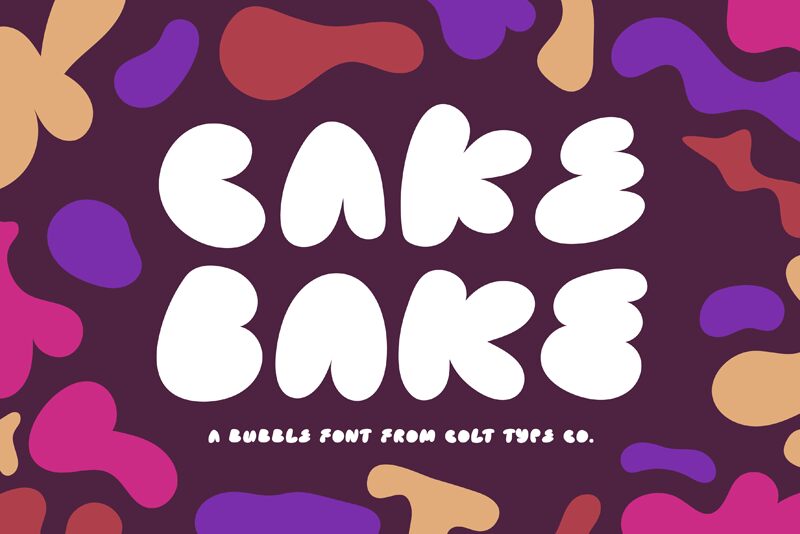
Check out Cake Bake, the latest display font from wearecolt. This ultra-bold, cartoonish and bubbly typeface is bursting with character and 70's retro vibes.
Its all-uppercase design, with alternate uppers on the lowercase keys, gives it a natural flow and feel. Whether you need a playful logo, eye-catching headings, attention-grabbing book titles or witty quotes, Cake Bake is perfect for adding a touch of cheeky fun-ness to any project.
Let your creativity run wild with this vibrant and energetic font!
For good measure, I added an outline version... you're welcome.